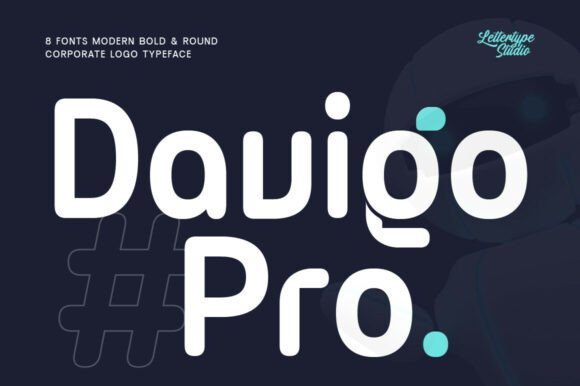
Meet the Font that’s About to Revolutionize Your Designs
You know that feeling when you’re stuck on a design project and nothing seems to be working? You’ve tried every font, every color scheme, and every layout, but it just doesn’t feel right. That’s when you stumble upon a game-changer – a font that effortlessly brings your vision to life. For designers, the latest addition to the world of typography is a true blessing: the Davigo Pro Font.
This refined, rounded type family is designed to deliver a softer, more fluid visual character that’s both premium and approachable. With its balanced proportions and smooth terminals, Davigo Pro Font adapts effortlessly across branding ecosystems, making it a valuable asset for designers looking to elevate their work. Whether you’re working on a lifestyle, beauty, or hospitality brand, or need a font that can hold its own in professional and commercial applications, Davigo Pro Font is sure to impress.
Davigo Pro Font Key Features
- Font Size: Davigo Pro Font is available in 12 styles, ranging from Light to Black, with each style offering a unique weight and character.
- Unique Characteristics: Davigo Pro Font features a unique blend of modern and traditional elements, with subtle rounded edges and refined details that set it apart from other sans-serif fonts.
- Language Support: Davigo Pro Font supports a wide range of languages, including Latin, Cyrillic, and Greek alphabets, making it an ideal choice for global branding and communication.
- Kerning and Ligatures: Davigo Pro Font includes advanced kerning and ligature pairs, ensuring that text sets are visually appealing and easy to read.
Davigo Pro Font Review
Overall, I was really impressed with the Davigo Pro Font. The designer has done a great job in creating a clean and modern sans-serif font that’s perfect for various design projects.
Here are some of the things that I think work well:
- ✨ Legibility**: The font is highly legible, even at small font sizes, making it perfect for digital designs.
- ✨ Flexibility**: Davigo Pro Font is available in multiple weights, from Light to Black, giving you a lot of flexibility to choose the right weight for your design.
- ✨ Modern feel**: The font has a modern feel to it, which makes it perfect for designs that require a contemporary look.
However, I do have some concerns:
- ⚠️ Lack of italic and bold italic styles**: While the font has multiple weights, it would be great to see italic and bold italic styles to give designers more options.
- ⚠️ Not ideal for body text**: While the font is great for headings and titles, it may not be the best choice for body text due to its modern feel and lack of warmth.
Overall, I think Davigo Pro Font is a great addition to any designer’s font collection. It’s perfect for modern designs and is highly versatile. However, it’s not a replacement for a traditional serif font like Times New Roman or Garamond.
Tips for Getting the Most Out of Davigo Pro Font
For optimal results, use Davigo Pro font in combination with other sans-serif fonts to create a balanced and modern design.
Experiment with different font sizes and colors to create visual hierarchy and emphasis in your design.
Davigo Pro font is ideal for:
Logos and branding materials
Business cards and letterheads
Website headers and footers
Marketing materials (e.g., brochures, flyers, etc.)
Alternatives to Davigo Pro Font for Designers
Davigo Pro Font is a modern sans-serif font known for its clean lines and geometric shapes. If you’re looking for similar fonts, consider the following alternatives.
Montserrat is a sans-serif font designed by Julieta Ulanovsky. It’s a geometric font that’s perfect for digital products, mobile apps, and websites. Montserrat is more condensed than Davigo Pro Font, making it ideal for titles and headings. It’s also available in a wide range of weights and styles.